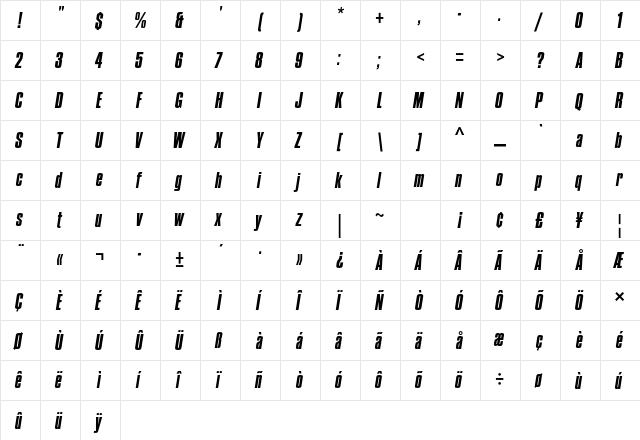
Compacta Std Italic Font Preview
| Designer | Fred Lambert |
Design Context for Compacta Std Typeface
Compacta Std takes a measured approach to typography — its balanced proportions and neutral character make it a reliable workhorse for both digital and print work. The dynamic lean of this cut emphasises speed and emphasis in any layout. The condensed width makes it efficient for tight spaces without sacrificing legibility.
Pro Tip: Use Compacta Std for emphasis, pull quotes, and subheadings where its slanted energy can add rhythm to the layout.